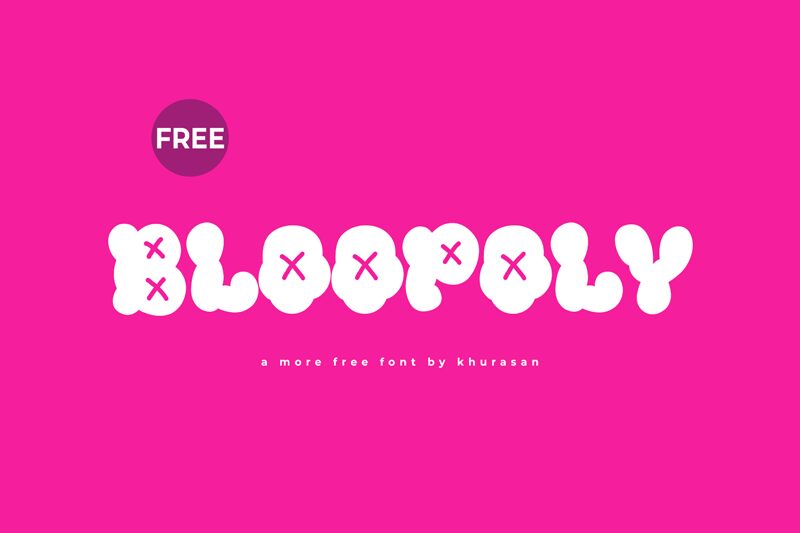
Bloopoly
Bloopoly, a captivating display font crafted by the talented designer Khurasan, exudes a playful and whimsical charm. Its distinctive, rounded letterforms and bold, expressive strokes create a delightful, cartoon-inspired aesthetic that instantly captures the eye. The font's bold weight and dynamic style lend it a sense of vibrancy and energy, making it an engaging choice for a variety of design applications.
This versatile font can elevate a wide range of projects, from playful branding and packaging designs to eye-catching headlines, posters, and promotional materials. Bloopoly's unique character and distinctive personality make it an ideal selection for projects that seek to convey a lighthearted, fun-loving tone, whether in the realms of children's products, entertainment, or creative campaigns.